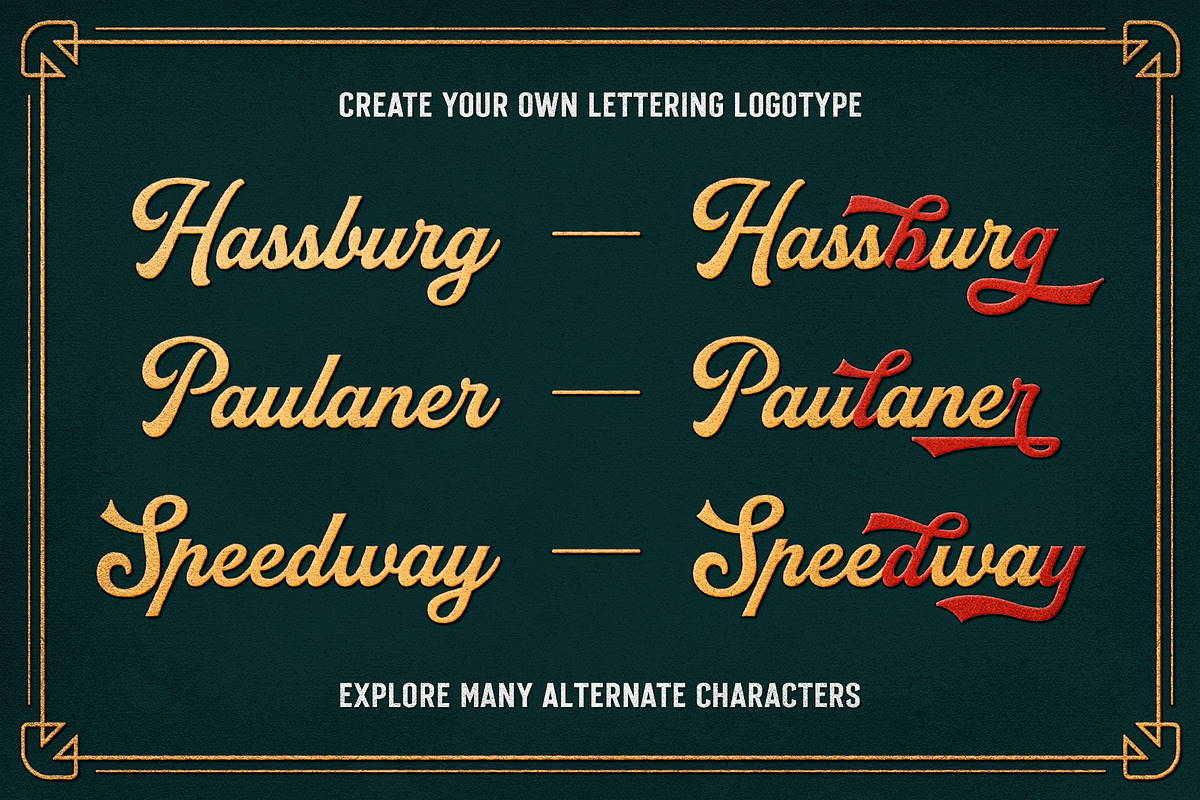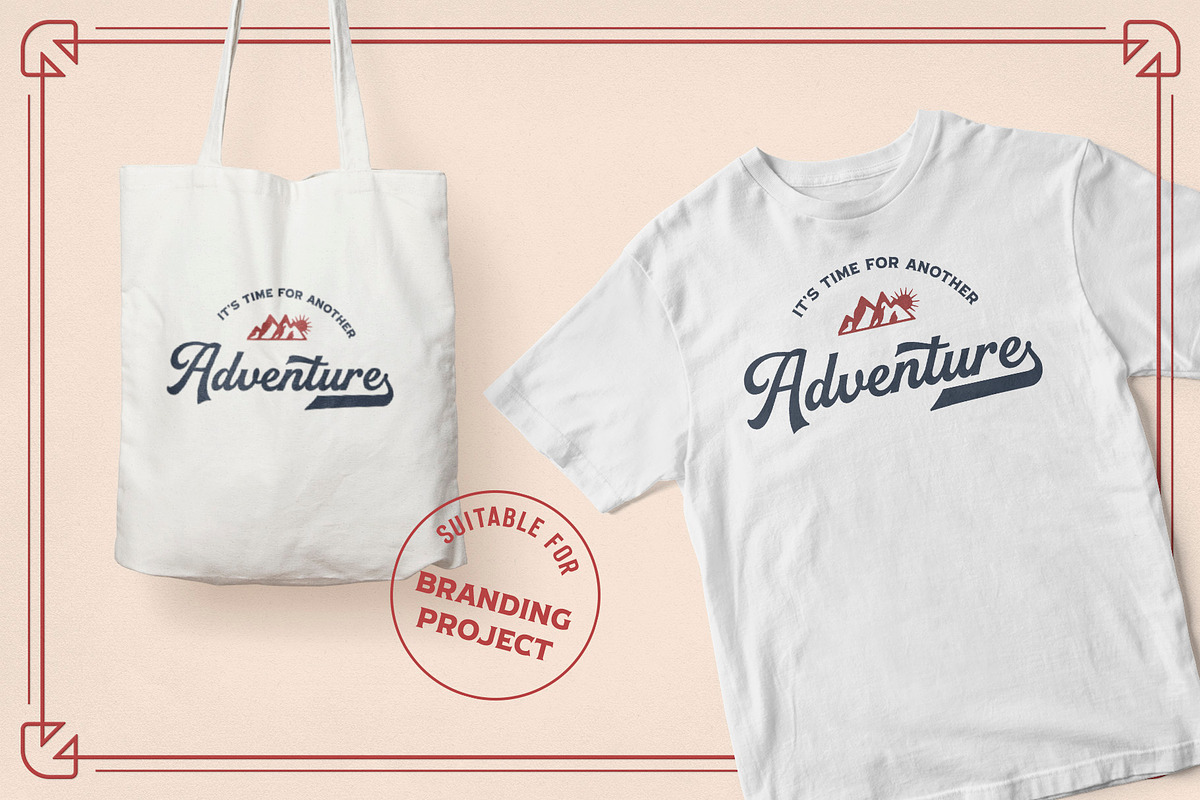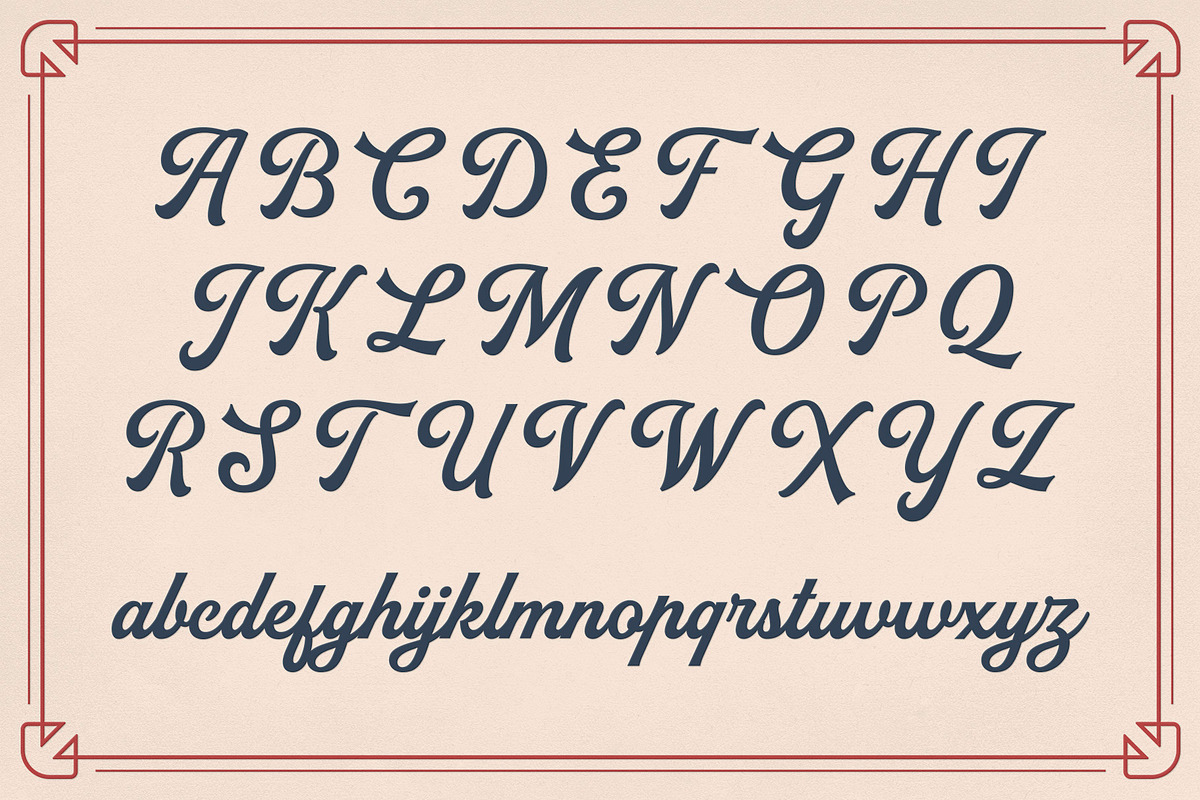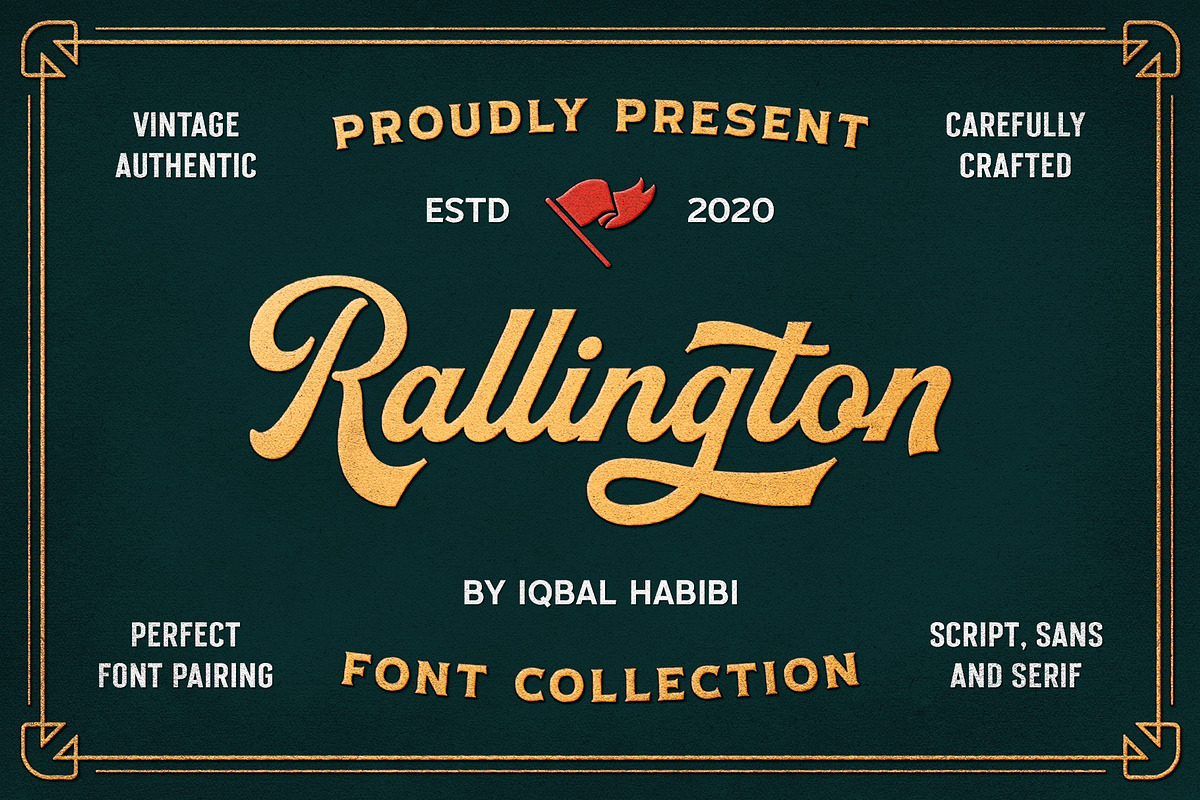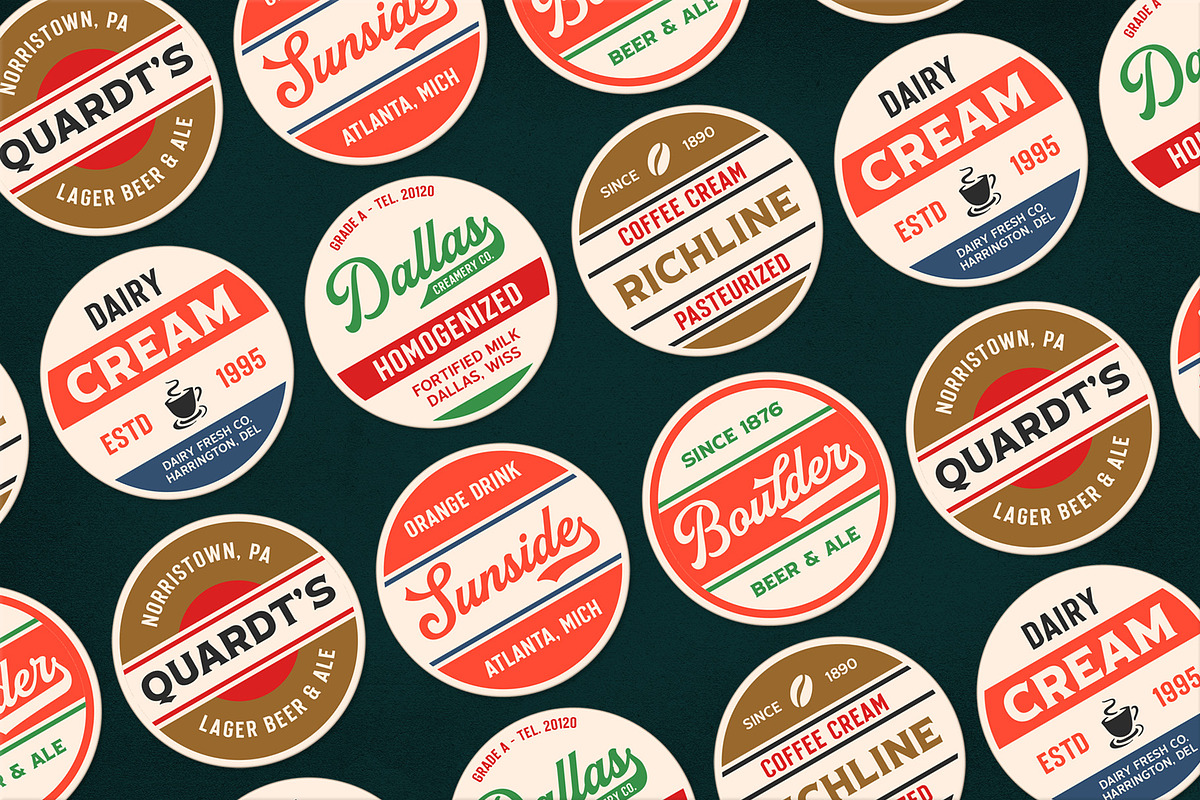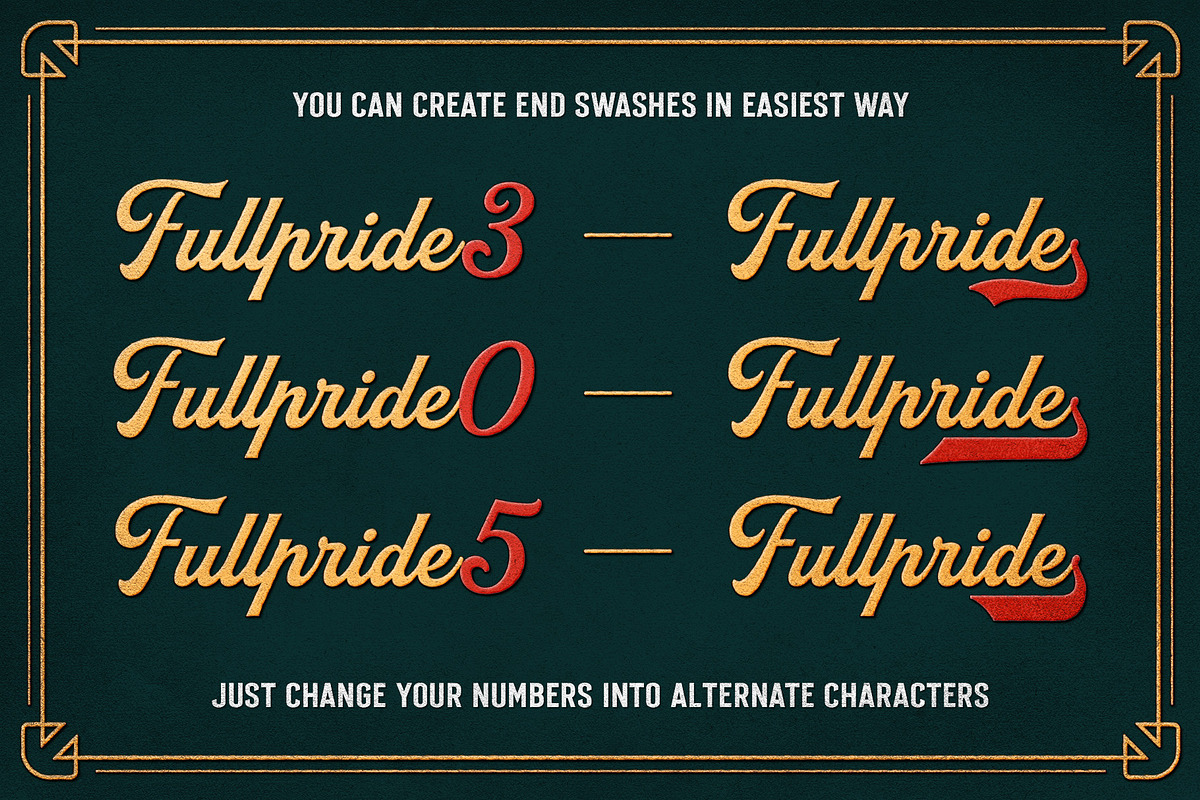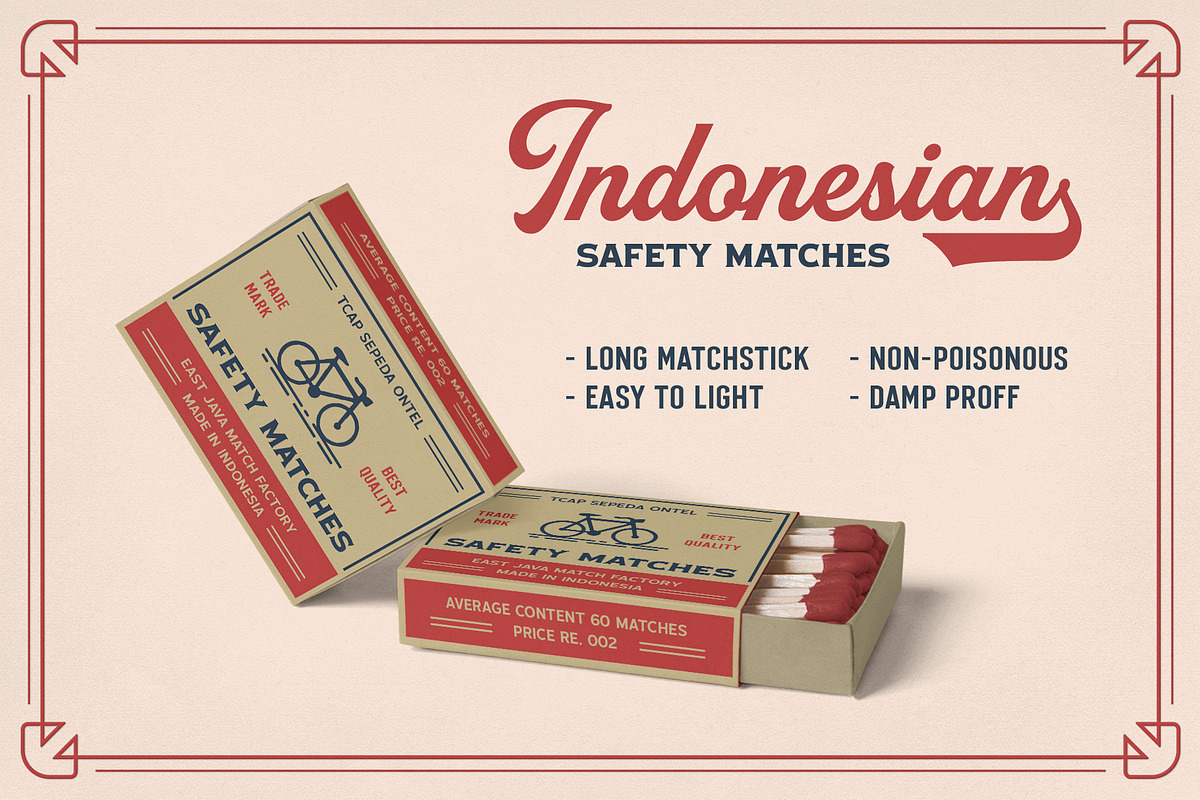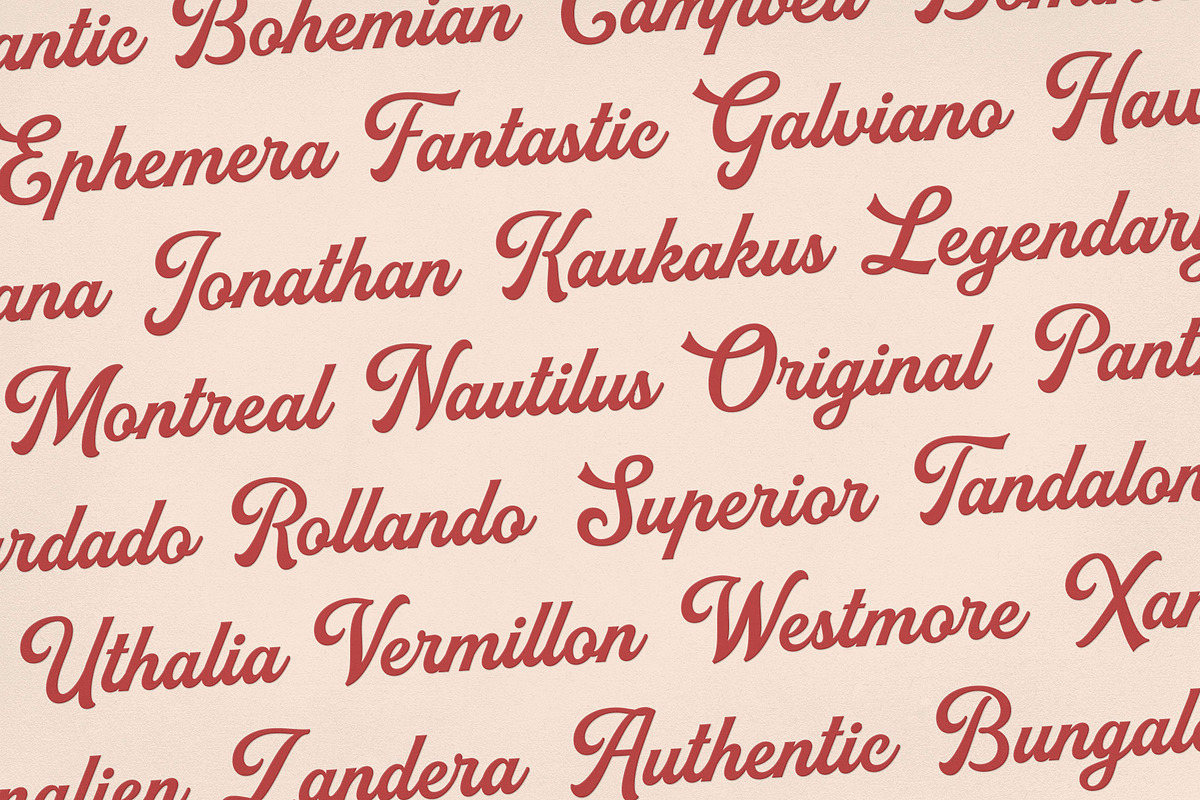
Rallington - Font Collection
Rallington Font Collection is inspired by vintage lettering works, such as beer label design, vintage print advertisement, matchbox design, etc. This font comes with 4 Fonts. You can create a great combination with these fonts, like to create label design, signage, logotype, t-shirt and many more.
Rallington Font Collection features :
-Alternates and Ligatures
-Number, Punctuation, and Symbols
-Language Support (ÁÂÄÀÅÃÆÇÐÉÊËÈÍÎÏÌÑÓÔÖÒØÕŒÚÛÜÙẀŴẄẂÝŶŸỲŹŻŽáâäàåãæçđéêëèíîïìñóôöòøõœúûüùẃŵẅẁýŷÿỳźżž)
- Alternates and Ligatures
- Number, Punctuation, and Symbols
- Rallington Sans 01 Regular
- Rallington Sans 02 Regular
- Rallington Script Regular
- Rallington Serif Regular